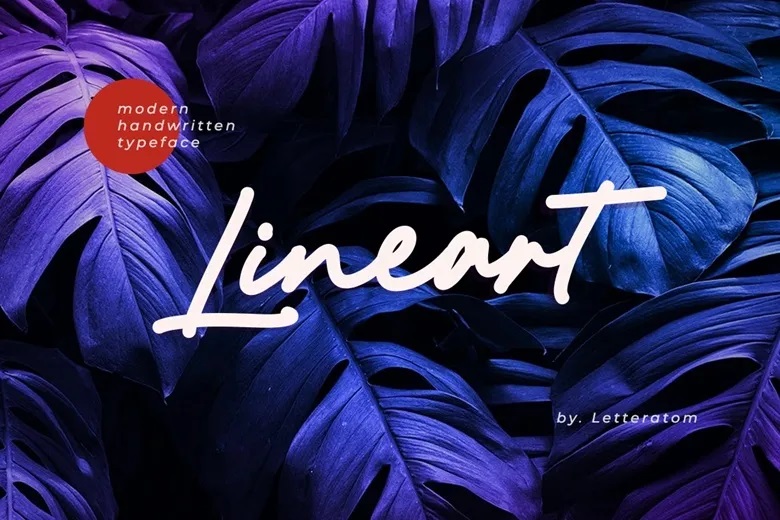
Lineart Font
The concept of a little touch of daring and a stroke of hastening to make a very distinctive modern typography. A modern font that one really notices is known as Lineart and will add a bit of liveliness to your design needs. It will be highly dynamic coupled with serif and sans serif fonts. and with Lineart make thy design look differing!
Lineart Handwritten Script Font